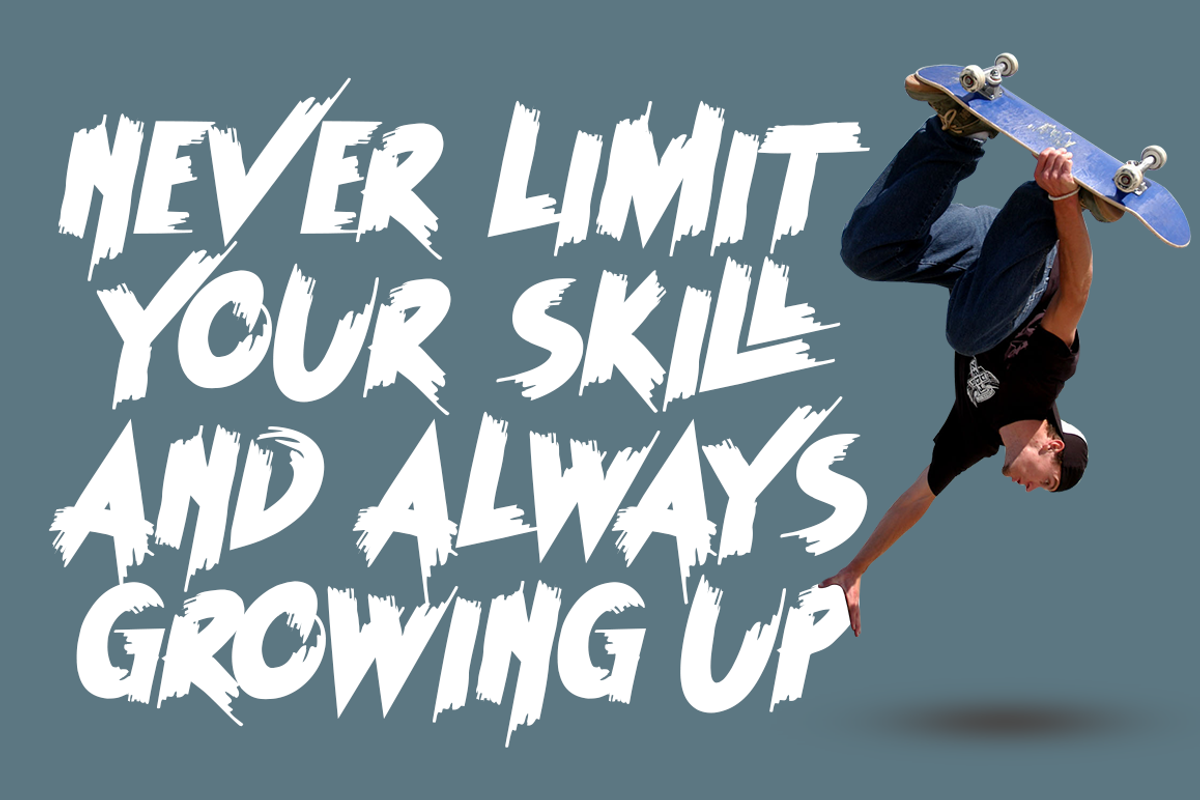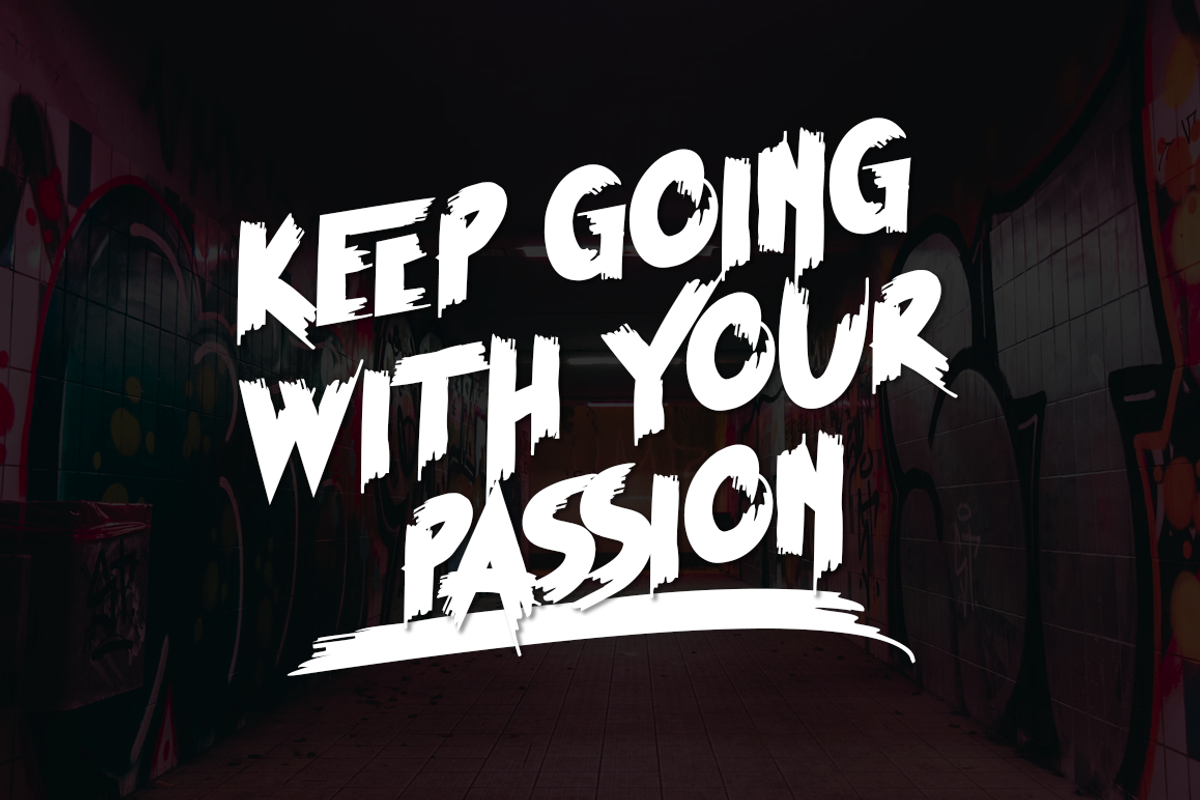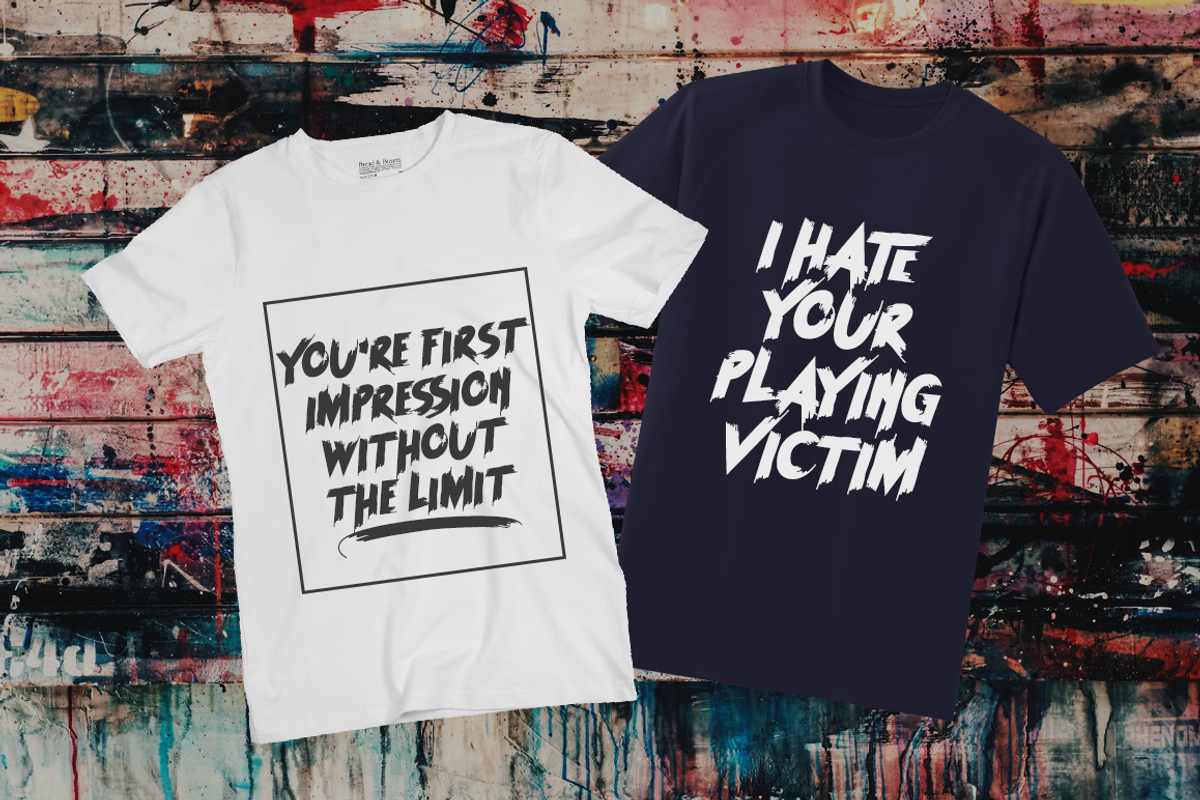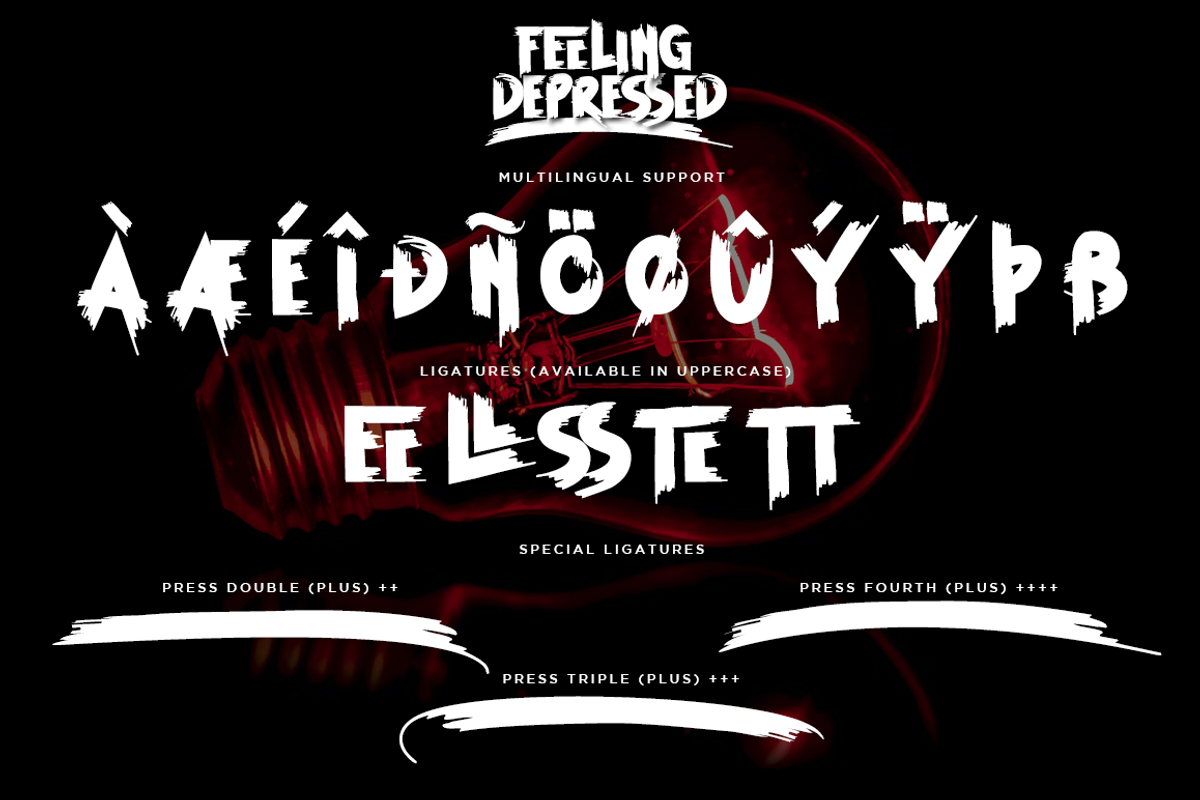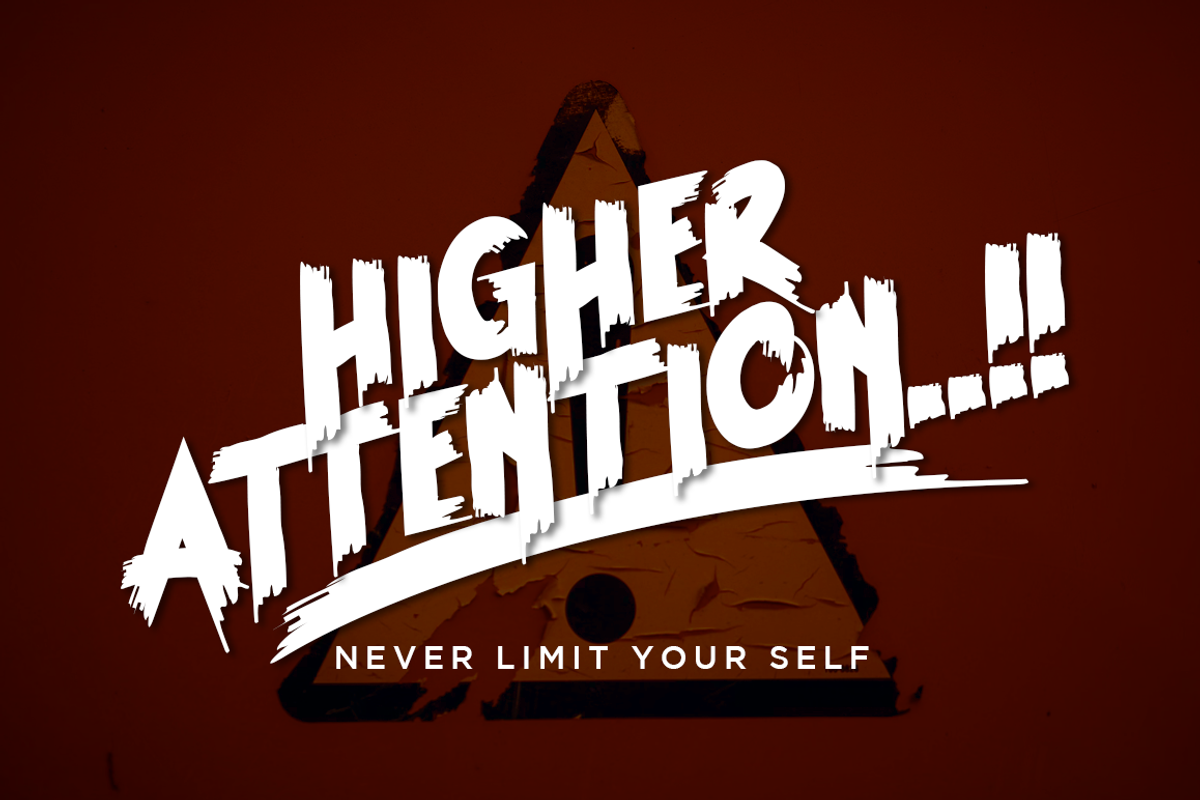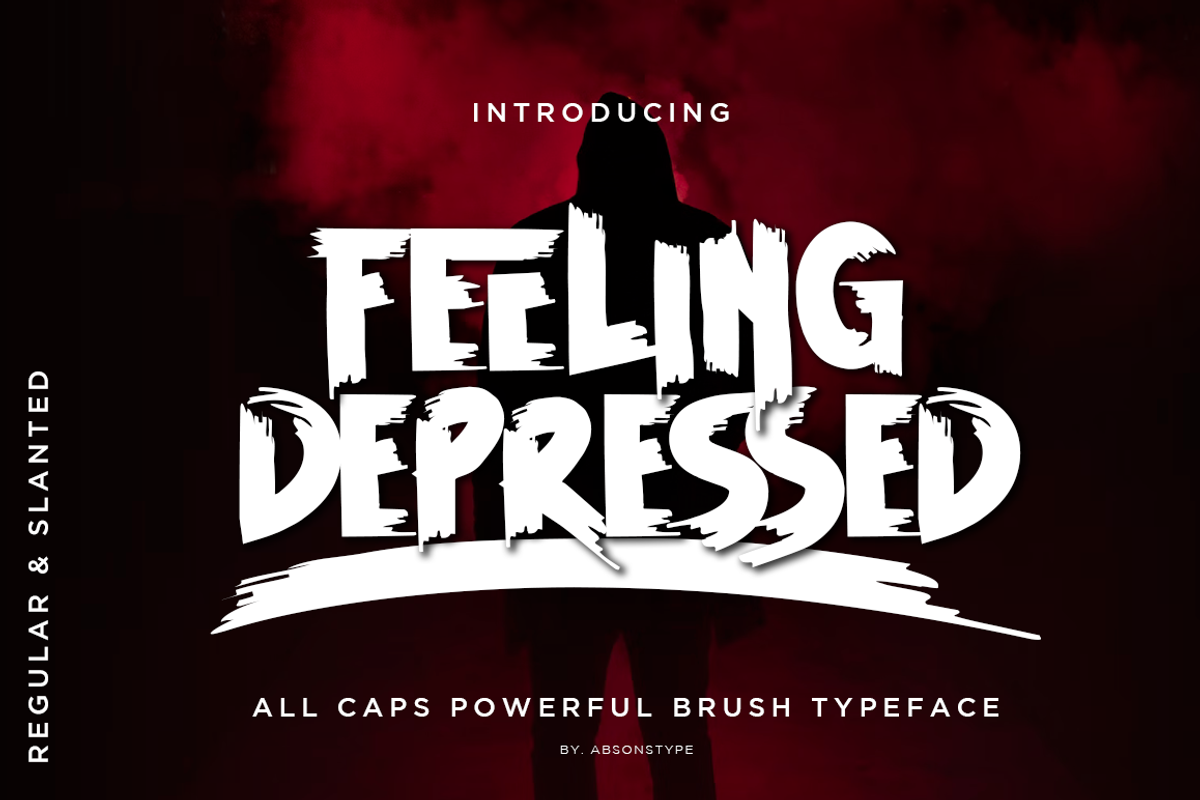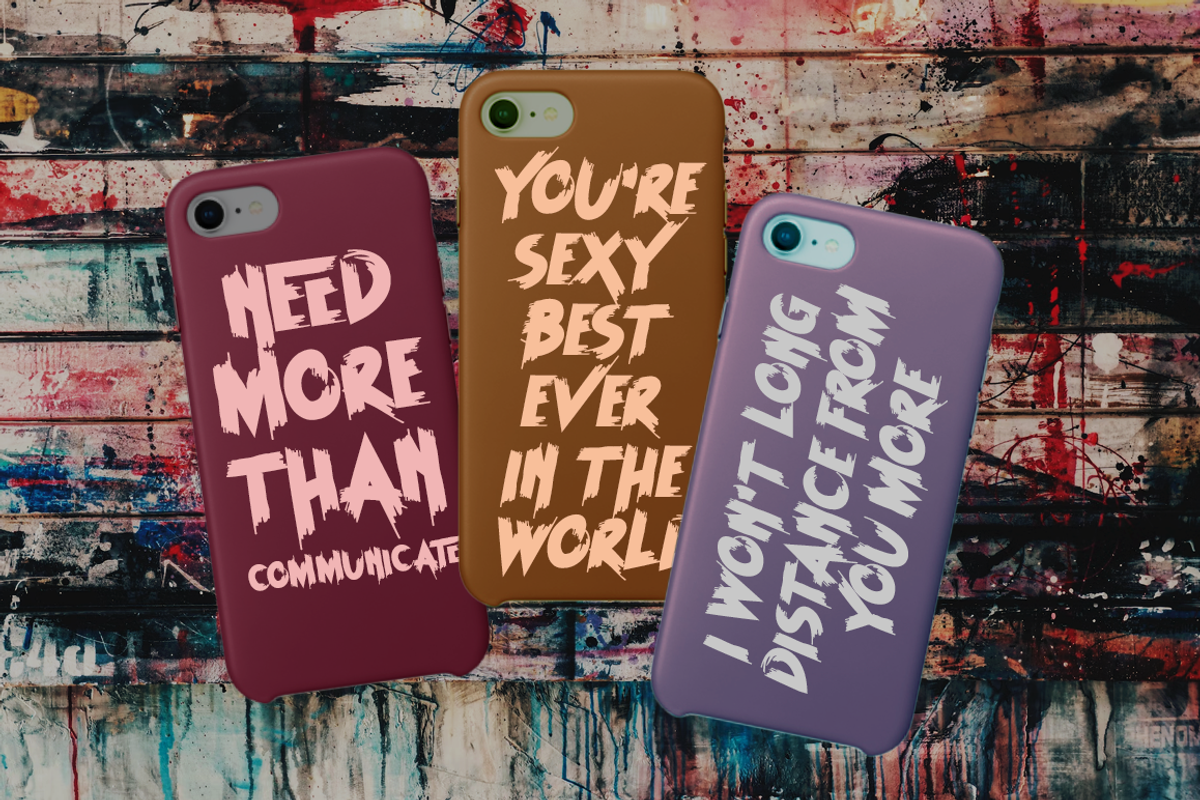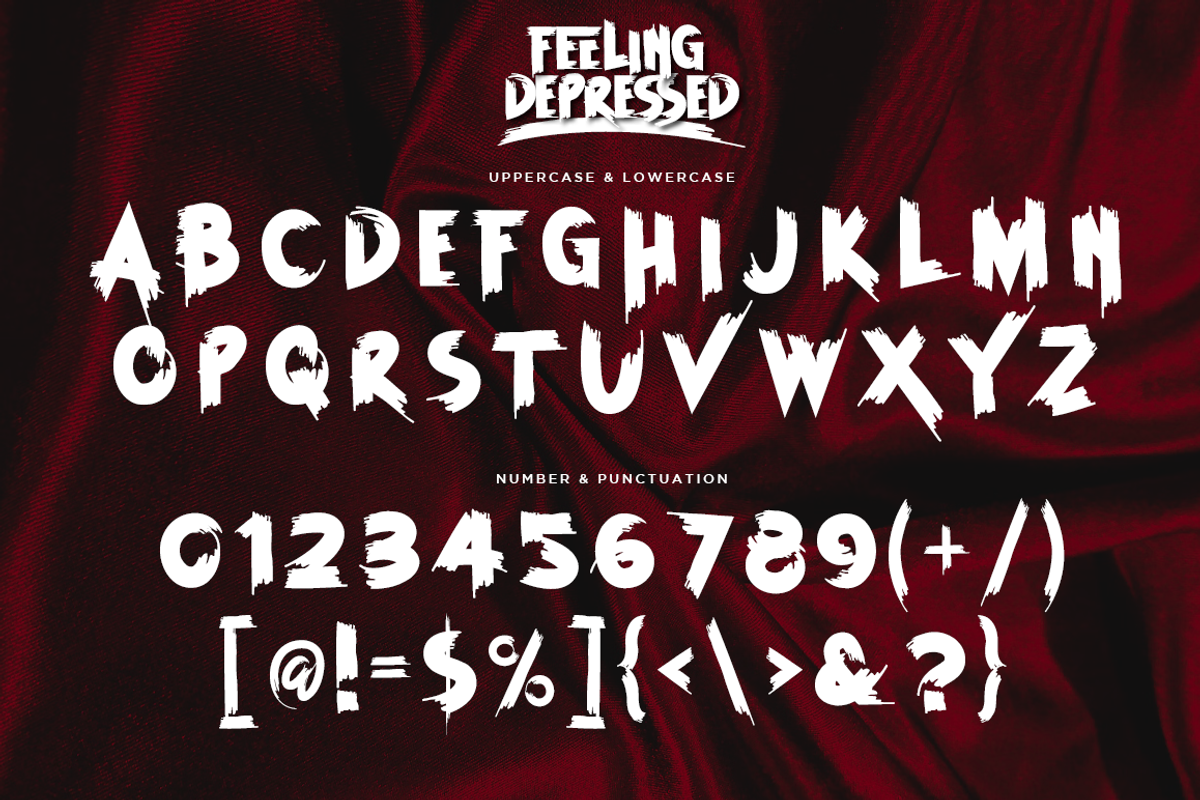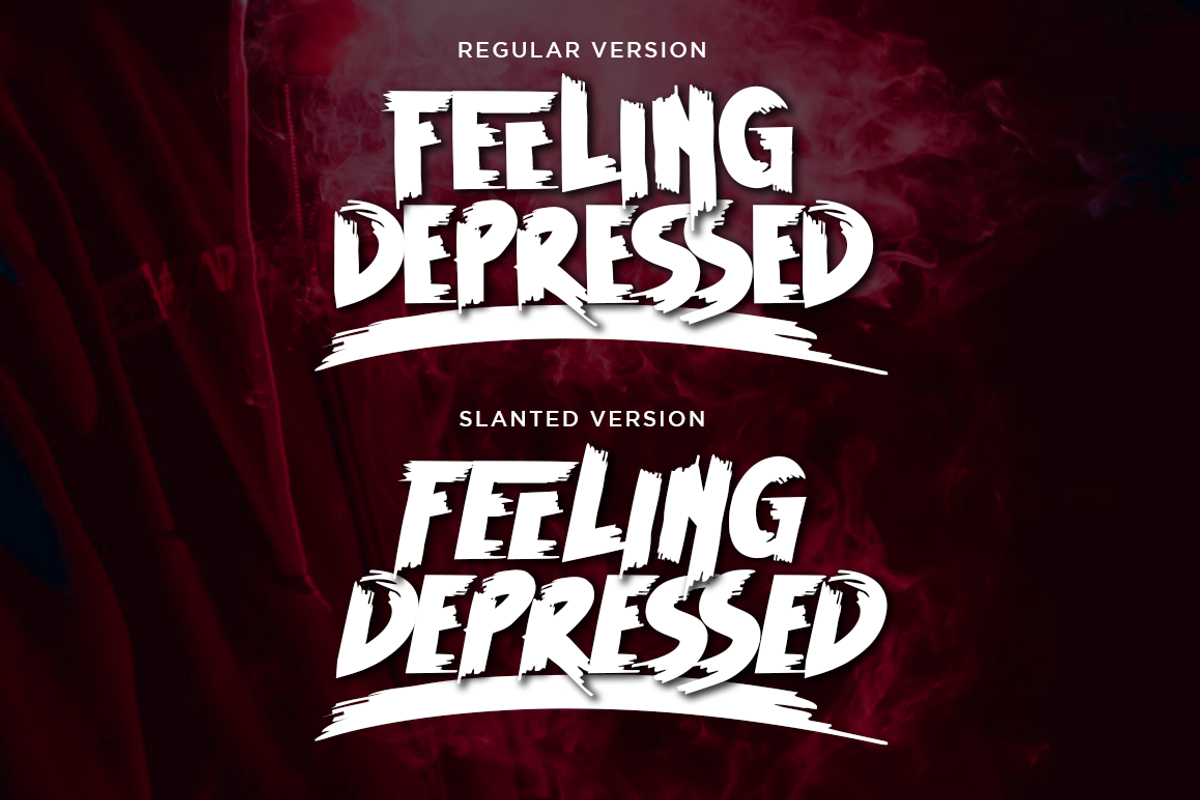
FEELING DEPRESSED - Absonstype
FEELING DEPRESSED is the brush display typeface with simple brush textured and all caps style looks and feel nice balanced.
Honestly it works perfectly for headlines, logos, posters, packaging, T-shirts and much more for branding and anything designs.
- Regular and Slanted (Italic) Version
- Character set A-Z in All Caps Style
- Ligatures in Uppercase
- Accented Characters
- Multiple Languages Supported